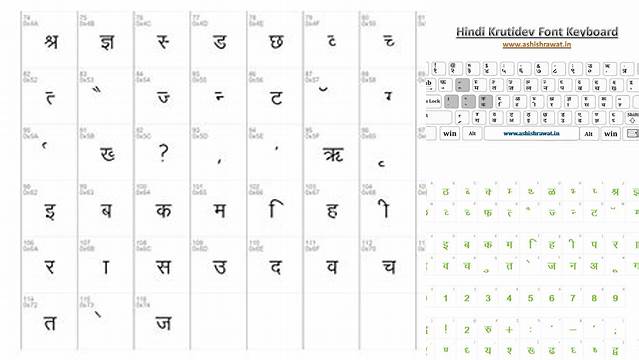
# What is Kruti Dev 010 Font?
Before we jump into the download process, let's understand what Kruti Dev 010 font actually is. Kruti Dev 010 is a non-Unicode font widely used for Hindi typing, particularly in India. Unlike Unicode fonts, Kruti Dev uses a specific character mapping, which means each key on the keyboard corresponds to a different Hindi character. This layout is preferred by many because it’s based on the Remington keyboard layout, which is familiar to those who learned to type on typewriters. The font is known for its clear and legible design, making it a popular choice for official documents, newspapers, and books. For many users, Kruti Dev 010 is the go-to font because of its long-standing presence and wide acceptance in various industries and government sectors. It’s also extensively used in competitive exams that require Hindi typing skills. So, if you are preparing for any such exam, having Kruti Dev 010 installed on your system is crucial. Understanding the nuances of this font and how it differs from other Hindi fonts can significantly enhance your typing speed and accuracy. Let’s delve deeper into why this font is so popular and why you should have it on your Windows 10 PC.
# Why is Kruti Dev 010 So Popular?
You might be wondering, why is Kruti Dev 010 font so popular among Hindi typists? Well, there are several compelling reasons. Firstly, its association with the Remington keyboard layout makes it a favorite for those who have prior experience with typewriters or older Hindi typing systems. This familiar layout allows for a smoother transition and faster typing speeds. Secondly, Kruti Dev 010 is widely accepted in various government and private sectors, making it a standard font for official documentation. If you're submitting applications, reports, or any formal documents in Hindi, chances are, Kruti Dev 010 is the preferred or even required font. Moreover, many competitive exams in India, especially those conducted by government organizations, require candidates to type in Kruti Dev 010. This has further solidified its importance among students and job seekers. The font’s clear and legible design also contributes to its popularity, ensuring that the text is easy to read and understand. Additionally, the widespread availability of resources and tutorials for Kruti Dev 010 makes it easier for new users to learn and master this font. All these factors combine to make Kruti Dev 010 a staple for Hindi typing needs.
# Benefits of Using Kruti Dev 010 on Windows 10
Using Kruti Dev 010 on Windows 10 comes with a plethora of benefits. First and foremost, it allows you to create and view Hindi documents seamlessly. Windows 10 has excellent font support, and Kruti Dev 010 integrates perfectly, ensuring your text appears correctly. Another significant benefit is compatibility. Many older documents and files are formatted using Kruti Dev 010, so having the font installed means you can open and read these files without any issues. This is particularly important for those working with archival data or historical records. Furthermore, if you are preparing for a government job or any exam that requires Hindi typing, using Kruti Dev 010 is almost essential. Familiarizing yourself with this font beforehand can give you a competitive edge. The font also offers a sense of familiarity for typists accustomed to the Remington keyboard layout, making the transition to digital typing smoother. Additionally, using Kruti Dev 010 ensures that your documents will be viewed correctly by others who also use the font, minimizing the risk of text displaying incorrectly. In short, having Kruti Dev 010 on your Windows 10 system is a practical choice for anyone working with Hindi text.